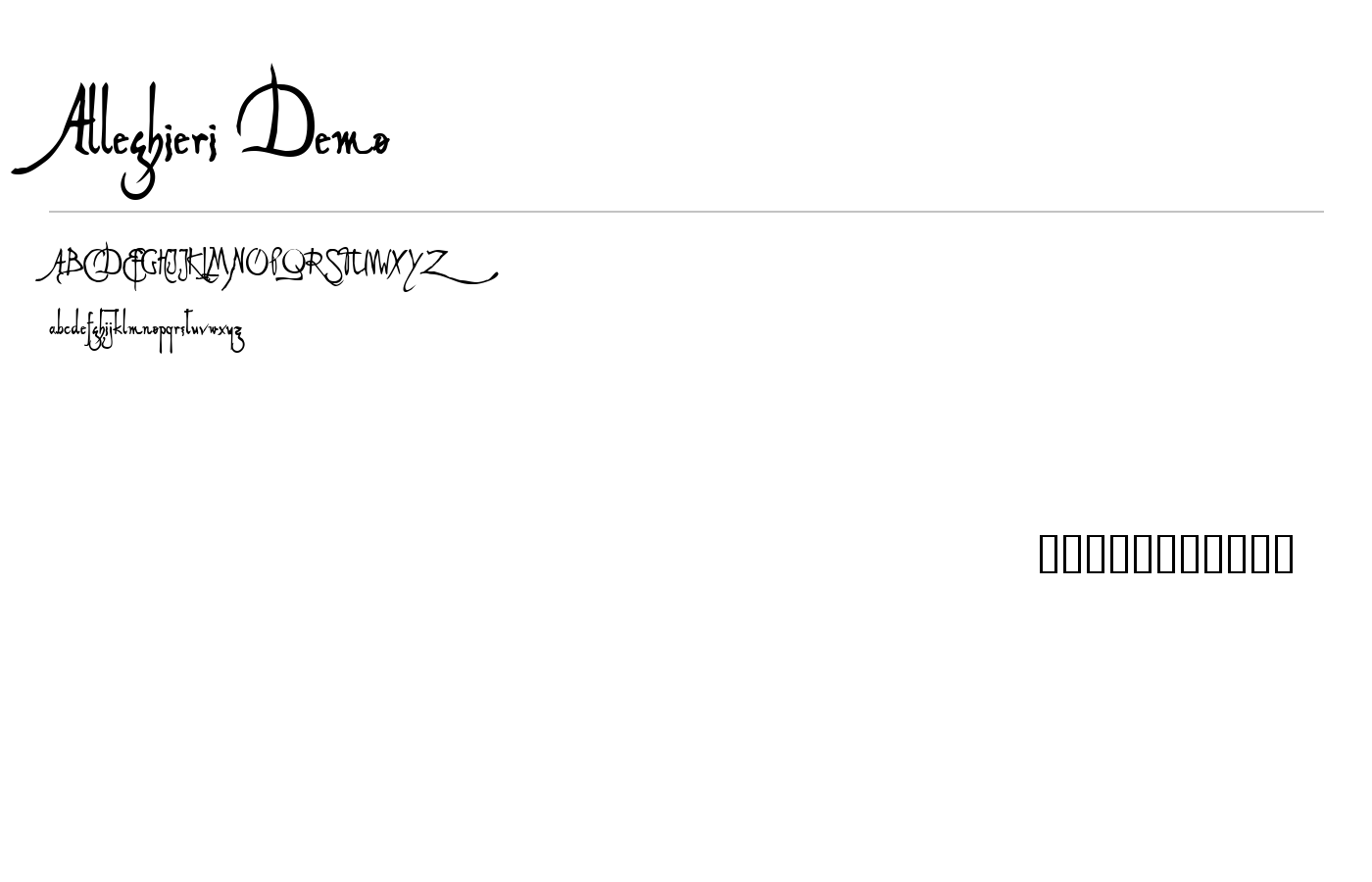
Alleghieri Demo is a highly decorative script font with an elegant, handwritten style that features sharp, flowing strokes and intricate letterforms. Its tall, narrow characters and unique flourishes give it a vintage, artistic feel, making it ideal for creative branding, invitations, or editorial projects where a distinctive, expressive look is desired. This font works best in display use where its detailed design can be appreciated without compromising readability.
Alleghieri Demo Font